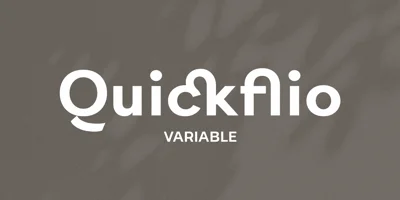
Quickflio Font
The Quickflio Font is excellent for dynamic design projects including portfolio websites, creative agency branding, modern business cards, startup presentations, design studio materials, freelancer portfolios, digital marketing campaigns, and contemporary promotional materials. This versatile typeface brings professional agility and creative energy to any design project requiring quick visual impact and modern appeal.
What makes Quickflio Font so exciting is its perfect balance of speed and sophistication that captures the essence of modern creative professionalism. The letters feature streamlined proportions with dynamic character spacing that creates an immediate sense of efficiency and forward momentum. This distinctive energy makes it perfect for brands and projects that want to communicate innovation, responsiveness, and contemporary creative excellence.
The Quickflio Font family typically includes multiple weights from light to bold, complete with italic variations and extended character sets. Many versions feature modern numerals, creative symbols, and stylistic alternates that enhance its versatility for portfolio presentations and contemporary branding applications.
Whether you're designing for creative professionals, tech startups, or modern service businesses, Quickflio Font offers the perfect solution for projects that need to showcase creativity while maintaining professional credibility. This font transforms standard text into dynamic designs that immediately communicate efficiency, innovation, and contemporary creative expertise to clients and audiences seeking modern, responsive services.